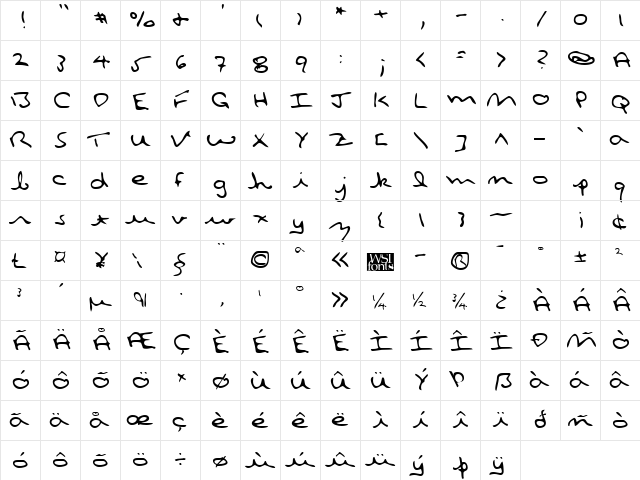
GailsHand Regular
Design Context for GailsHand Typeface
GailsHand brings a calligraphic fluidity to the page — its connecting strokes and expressive curves give it an unmistakably human quality.
Font Pairing: Combine GailsHand with a simple geometric sans for maximum contrast — the tension between flowing curves and clean structure is a classic typographic pairing.
Pro Tip: Use GailsHand for short runs of text — names, titles, or taglines. Extended body copy in script faces tires the eye quickly.